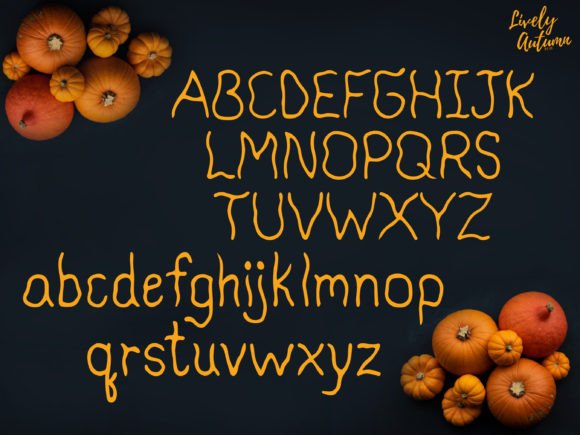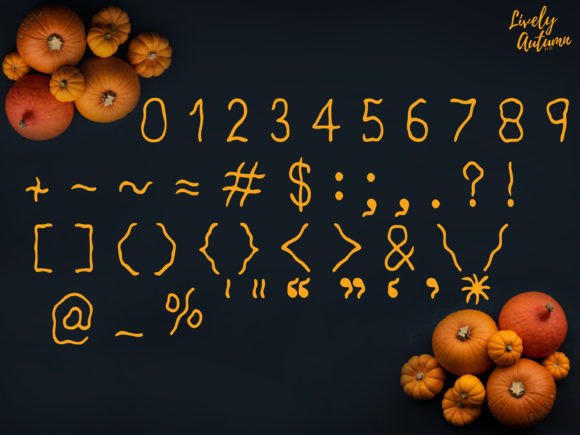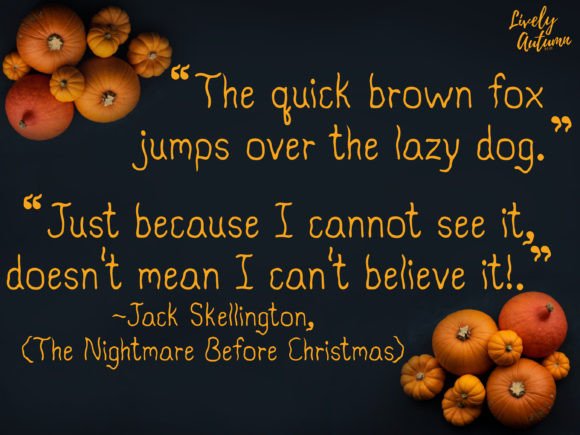
Introduction to Haunted Time Font
Haunted Time Font is a shaky Sans Serif handwritten font.
Perfect for your Halloween theme project, personal projects, and various projects From invitations to posters, social media graphics, journals, and much more.
Key Features of Haunted Time Font
Why Choose Haunted Time Font?